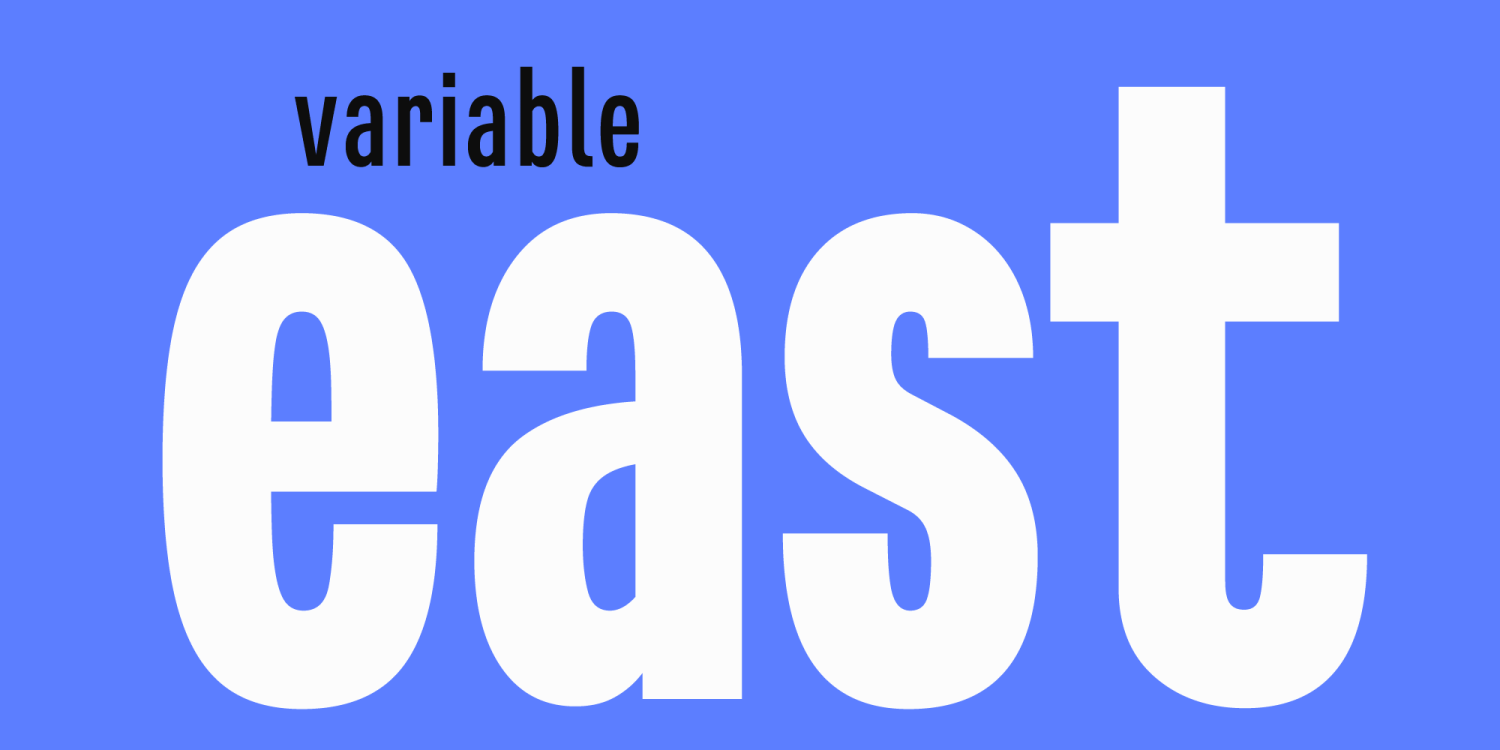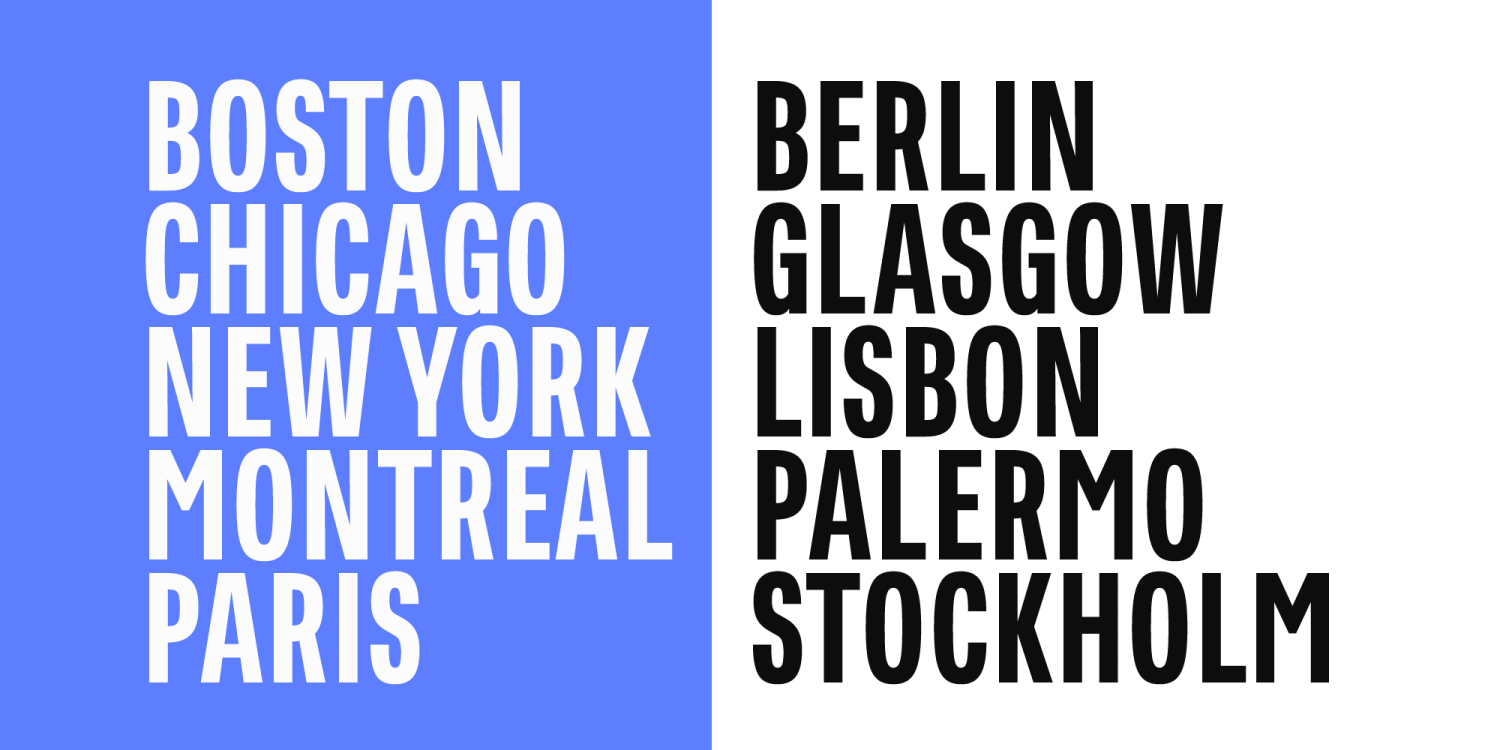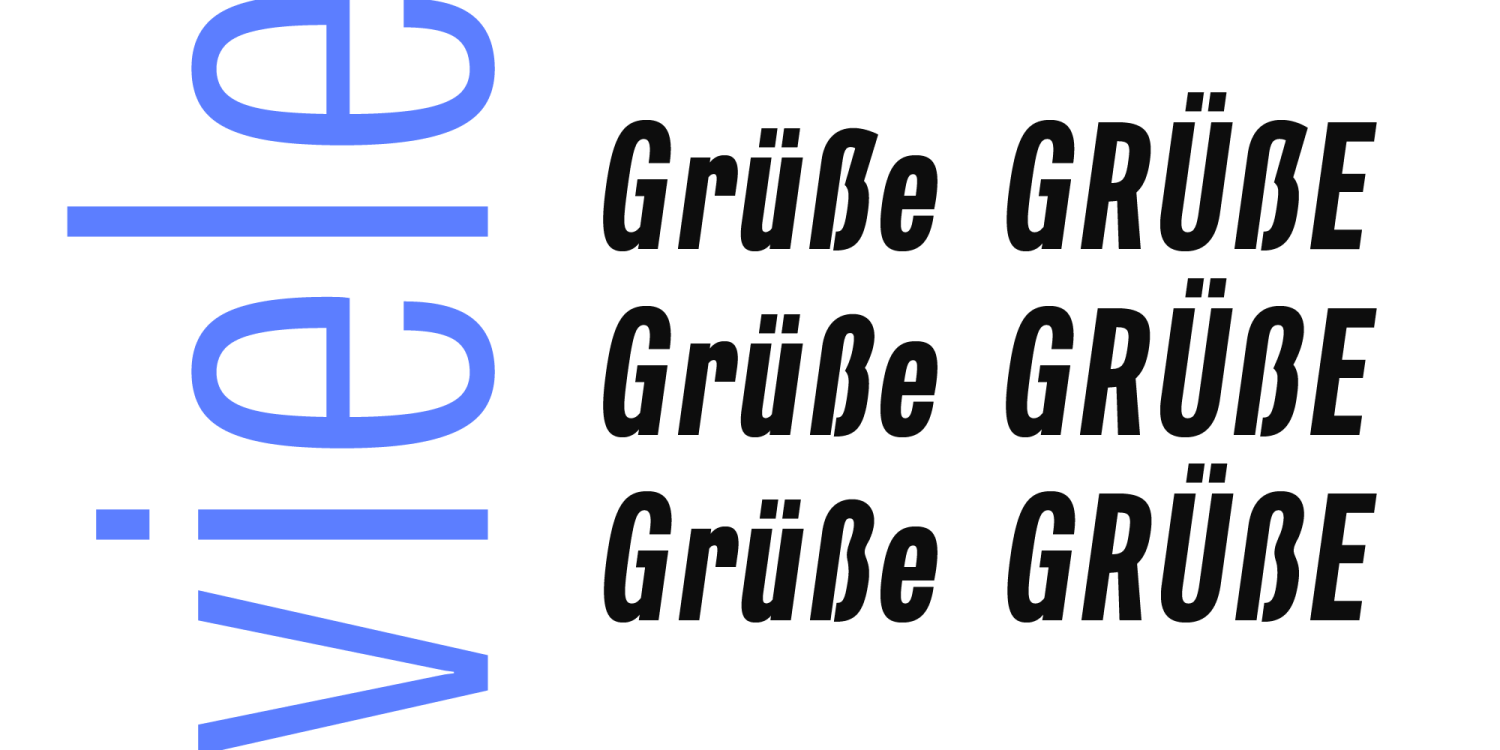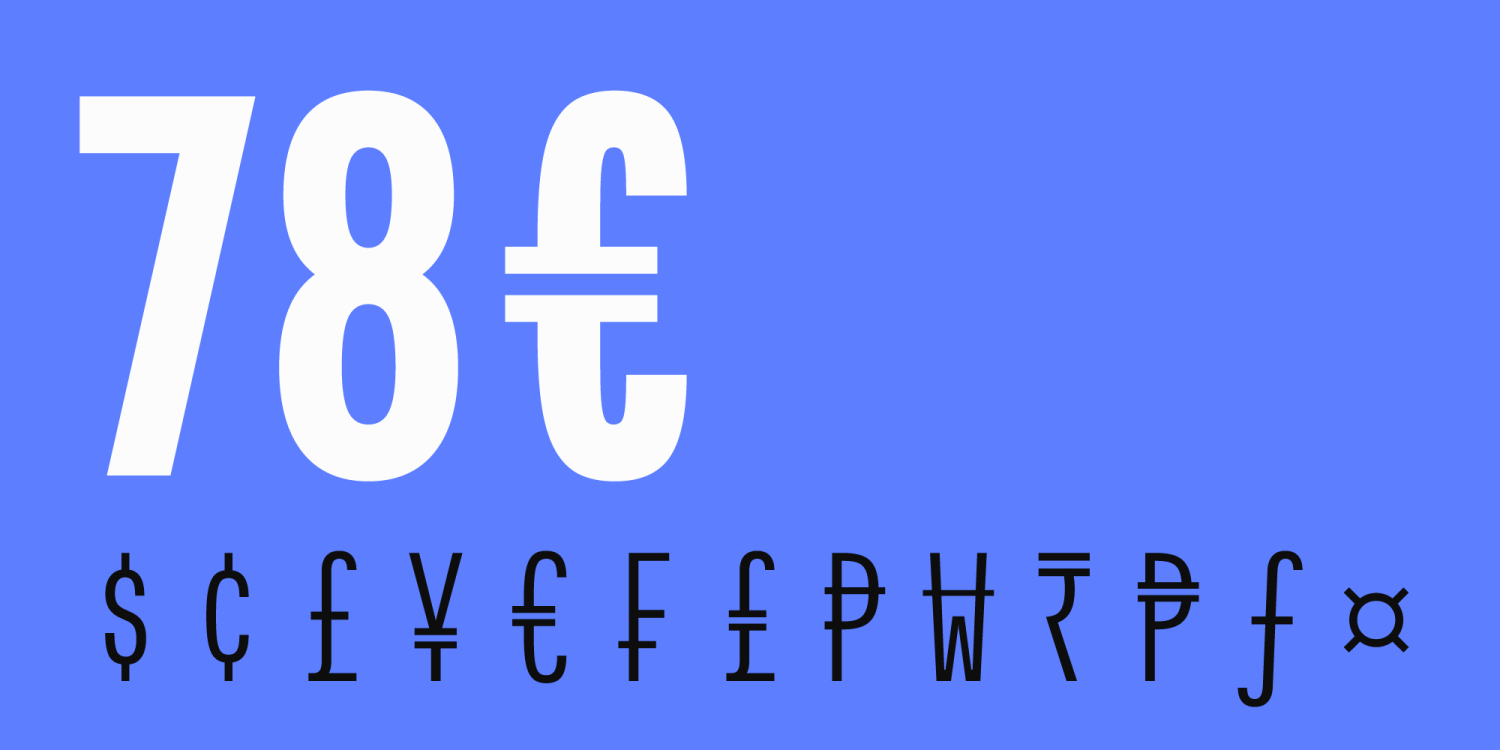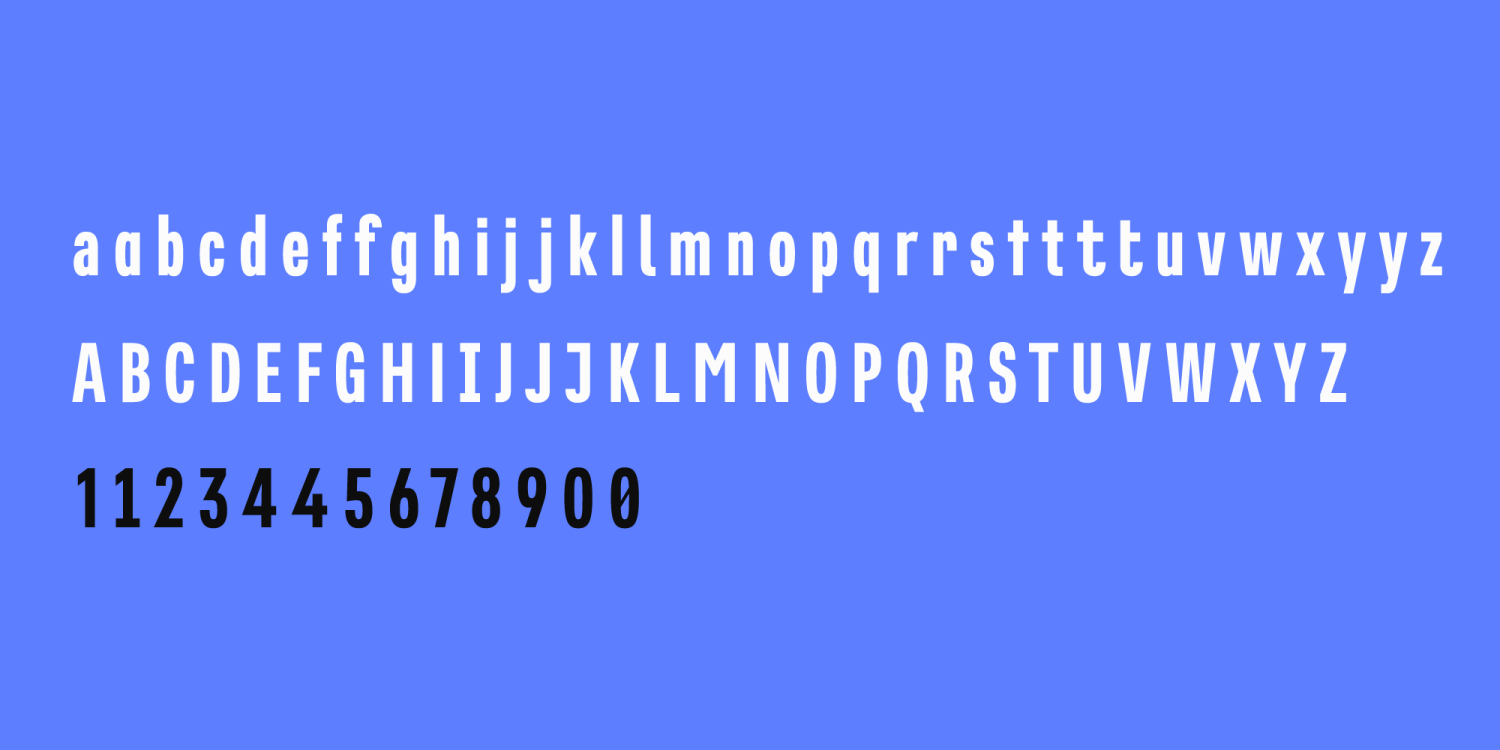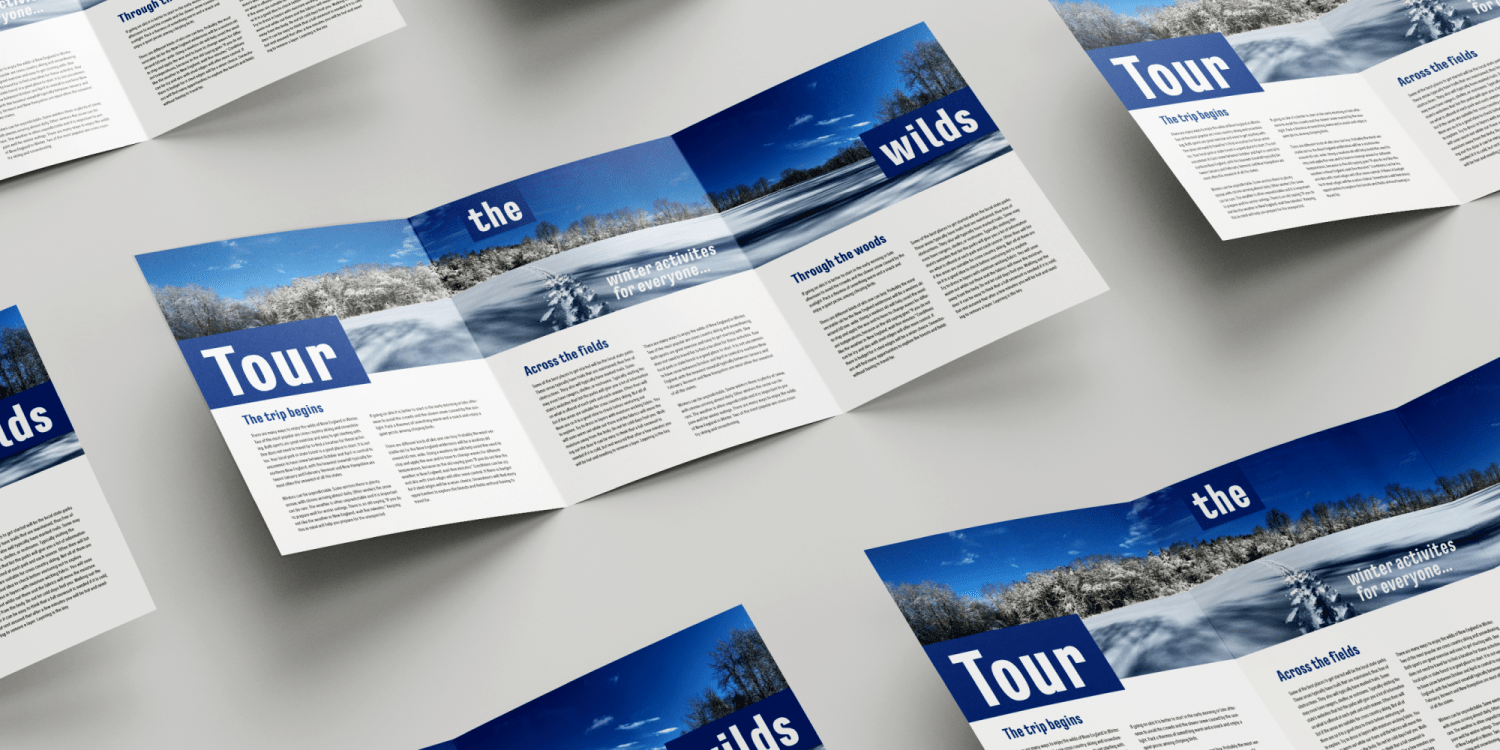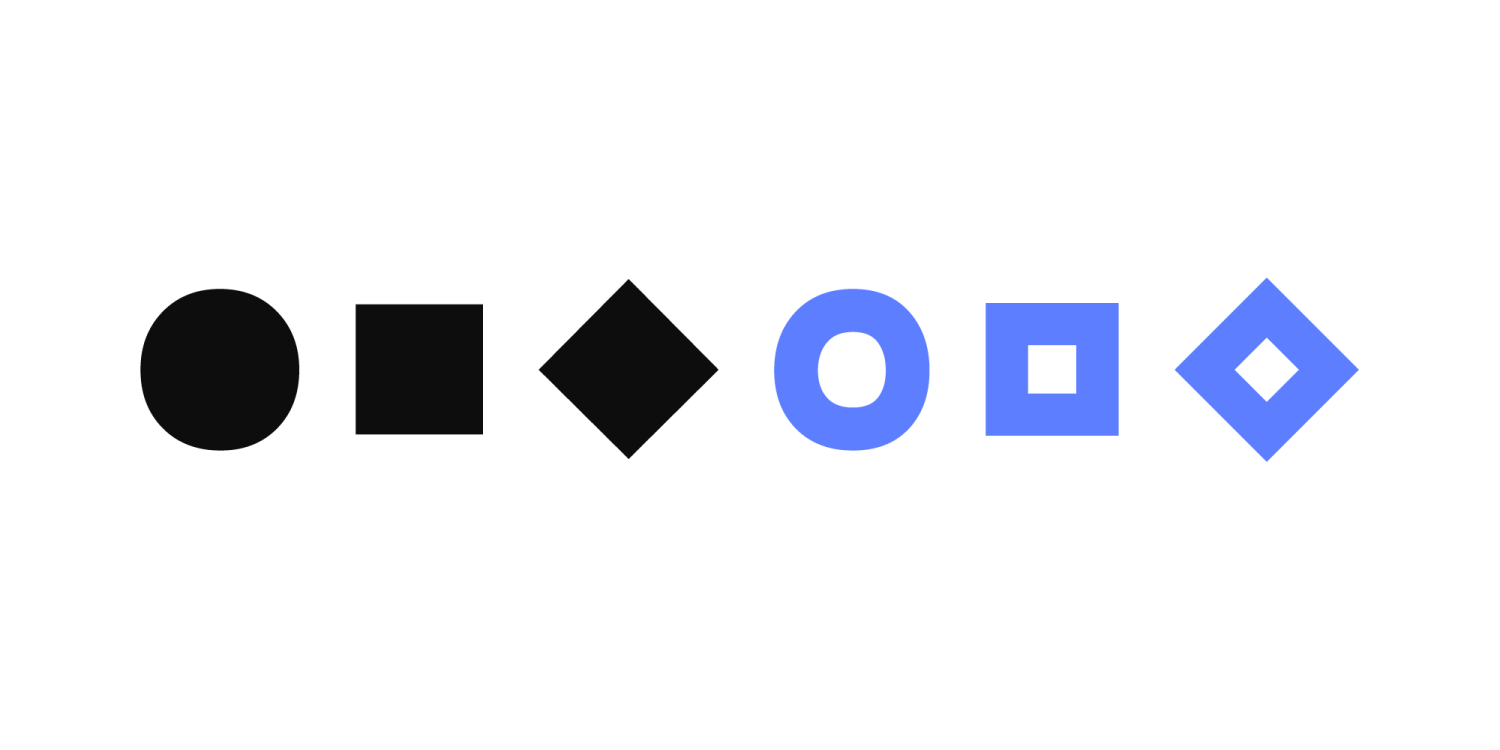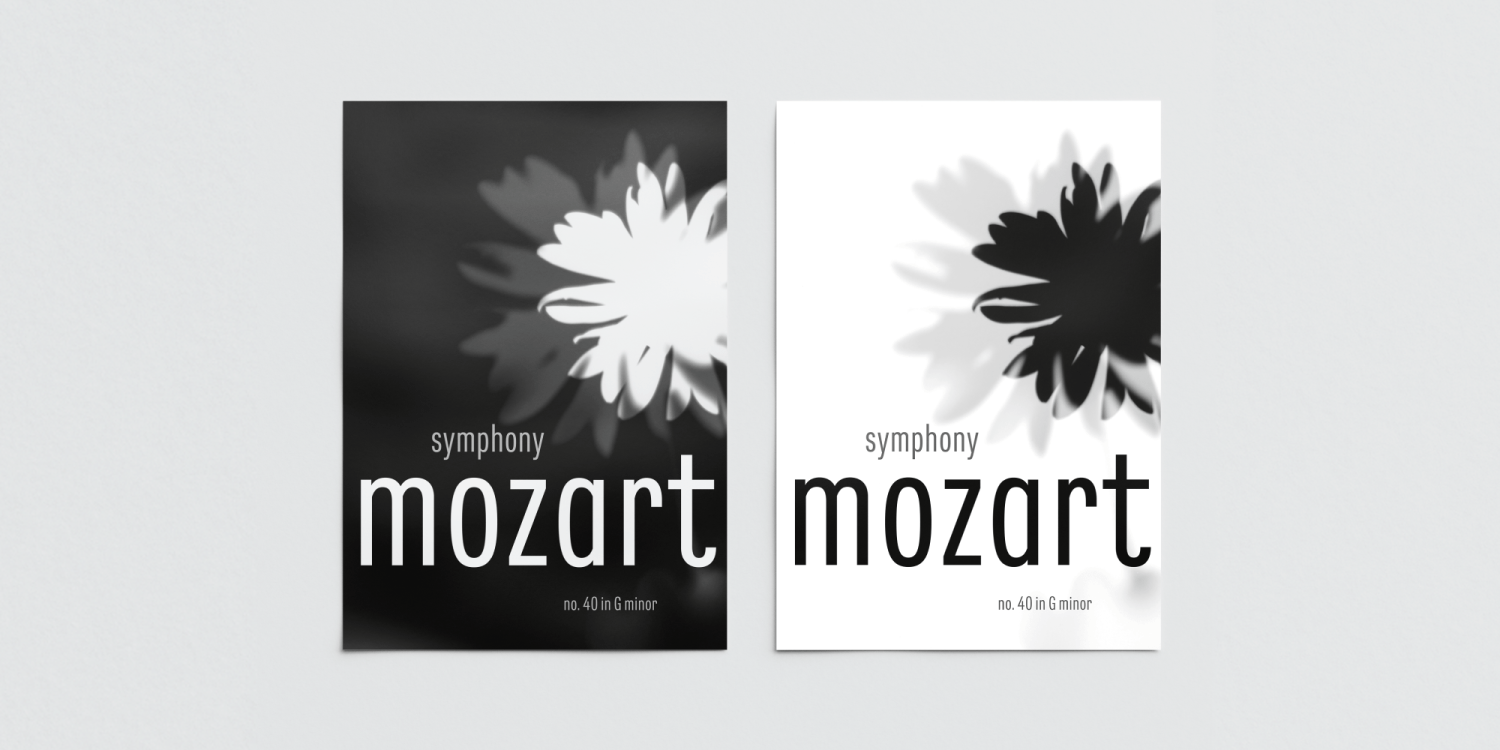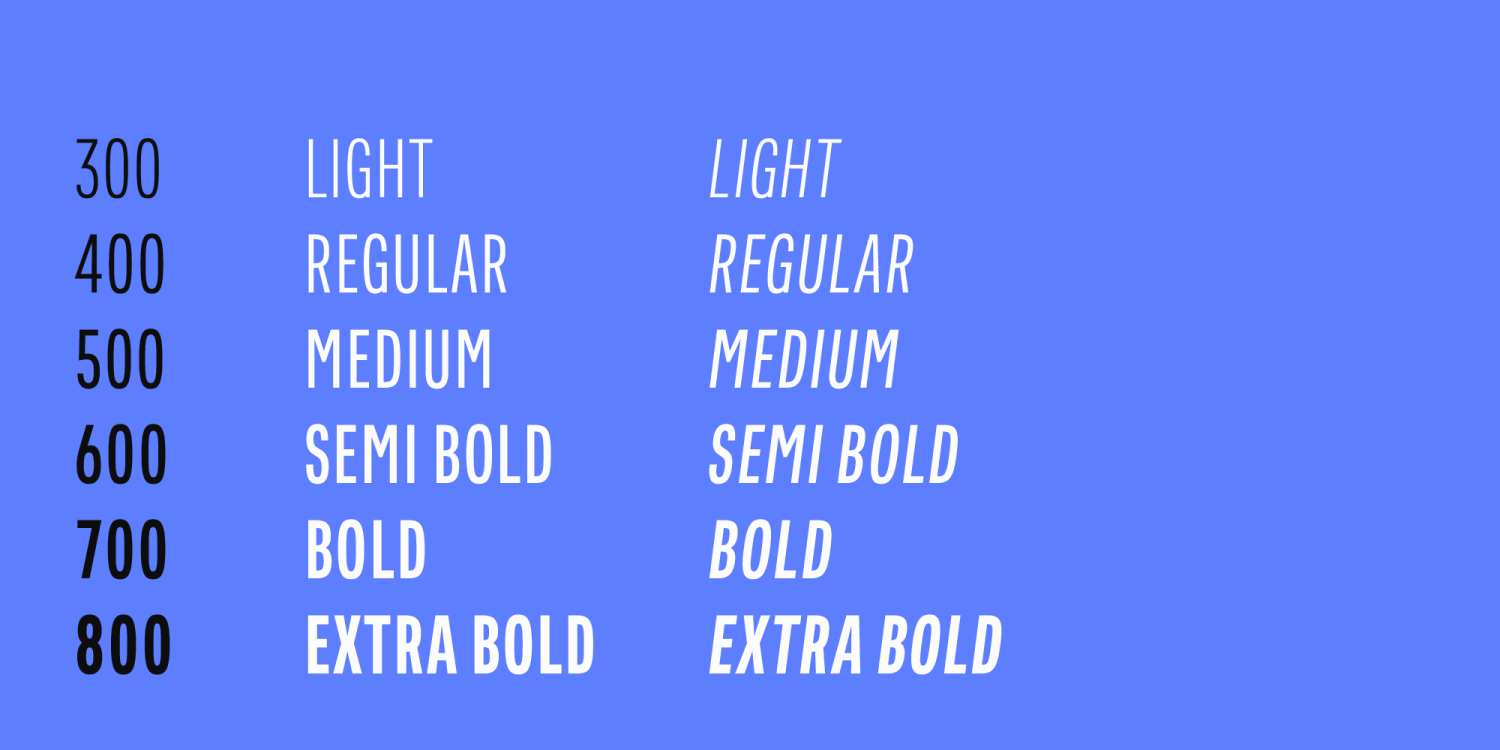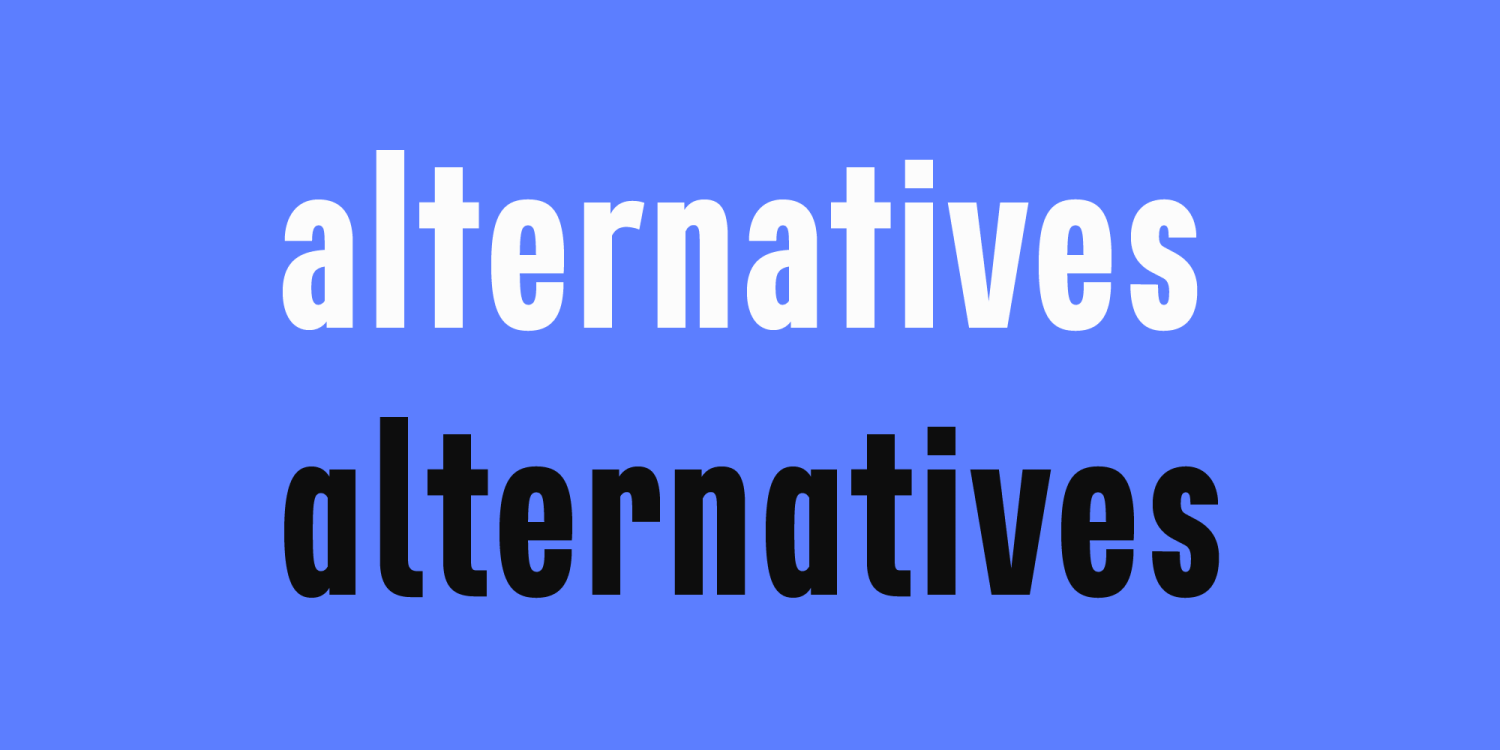
East Variable
Font Family by Tarallo Design
East Variable is a condensed sans serif typeface. It is timeless, but with a subtle nostalgia of vintage jazz albums, film titles, newspapers, and signage.
The light weight has excellent legibility at small sizes. The Extra Bold weight will capture attention. East is versatile, but would be a good choice for film titles, labels, publications, or any context where space is limited.
It has variable axes of weight and slant. The OpenType features include stylistic sets, a one-story 'a', hooked letters, seriffed uppercase 'I' and '1', a slashed zero, raised colon and punctuation (Spanish), German eszett, ligatures, and vertical fractions.